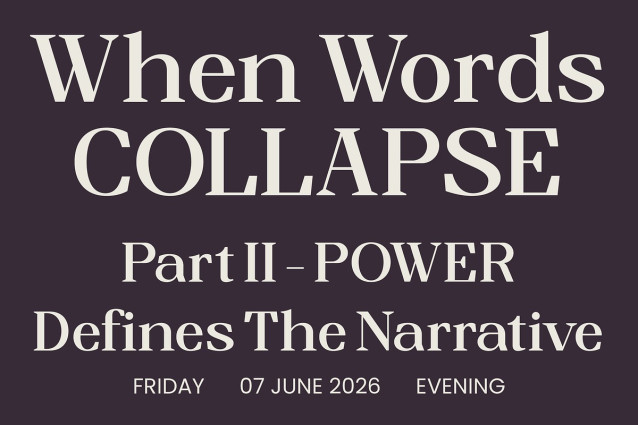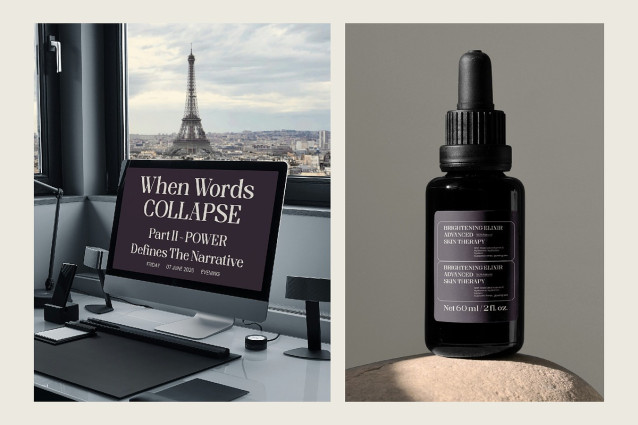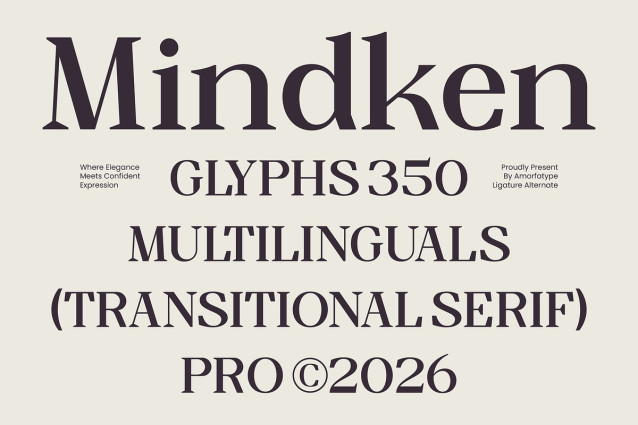
Mindken Font
Mindken Font is a refined transitional serif typeface crafted for designers who demand presence and precision. With pronounced contrast, crisp serif details, and carefully balanced proportions, it delivers a confident yet elegant tone suitable for high-end visual work.
This typeface bridges classical serif tradition and contemporary design sensibility, making it highly adaptable for branding systems, editorial headlines, luxury packaging, book covers, fashion layouts, and premium logo design. Mindken carries a polished character that feels established, credible, and visually commanding.
Every curve and terminal is built to maintain readability while preserving a distinctive editorial sophistication. It’s designed to stand out in display settings while remaining versatile enough for structured layout compositions.